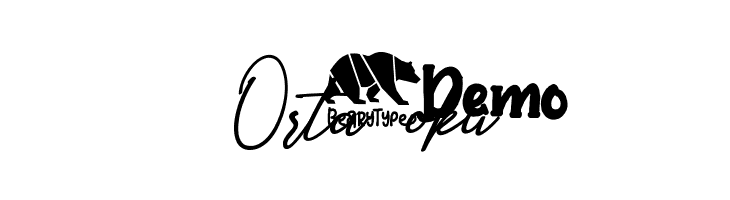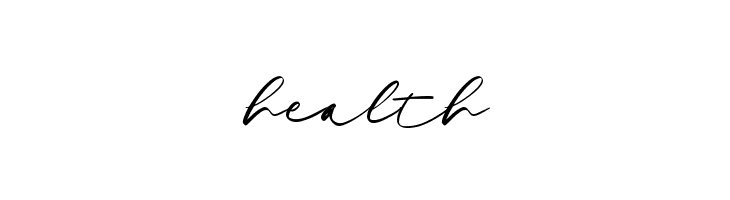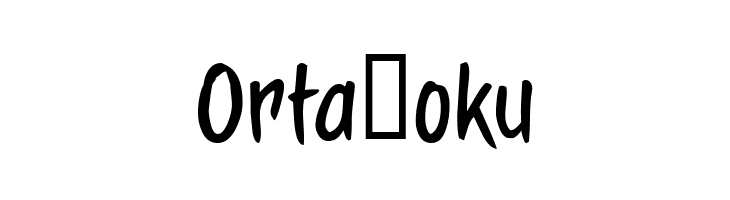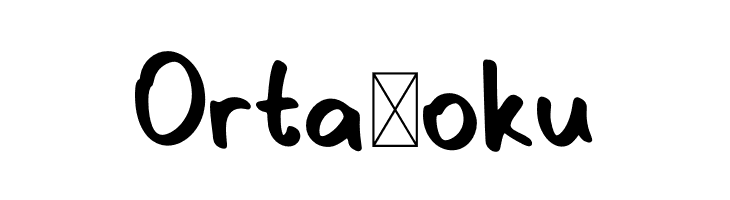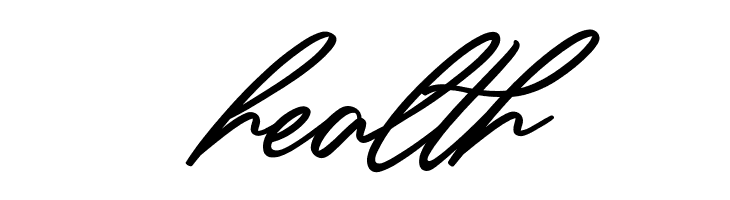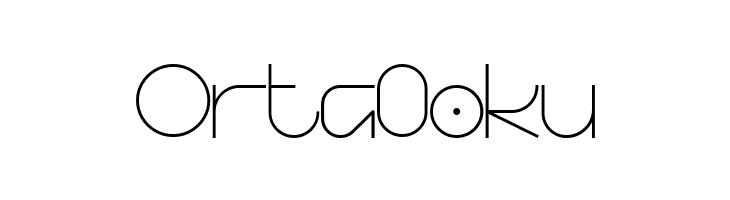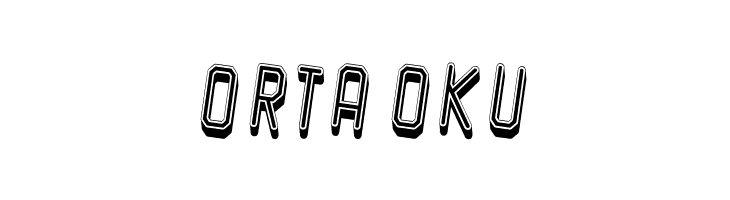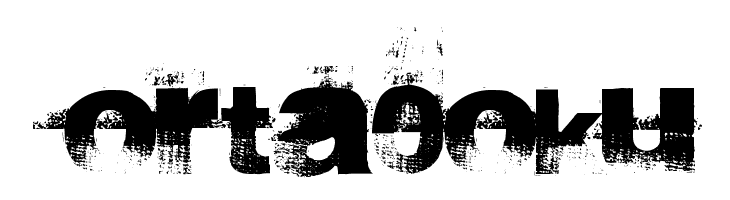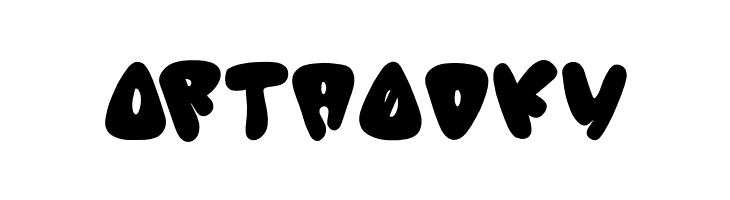
A cursive, handwritten-style font with elegant, flowing characters.
A playful, bold handwritten font with a casual and friendly style.
A bold, geometric font with sharp angles and high contrast, offering a modern, edgy look.
A playful, bold font with rounded, cartoonish characters.
A bold, distressed sans-serif font with a grunge texture.
A bold, three-dimensional font with geometric lines and shadow effects.
A modern, geometric font with thin lines and a sleek, futuristic style.
A dynamic, brush-style font with rough, expressive strokes.
An elegant script font with graceful, flowing lines and sophisticated style.